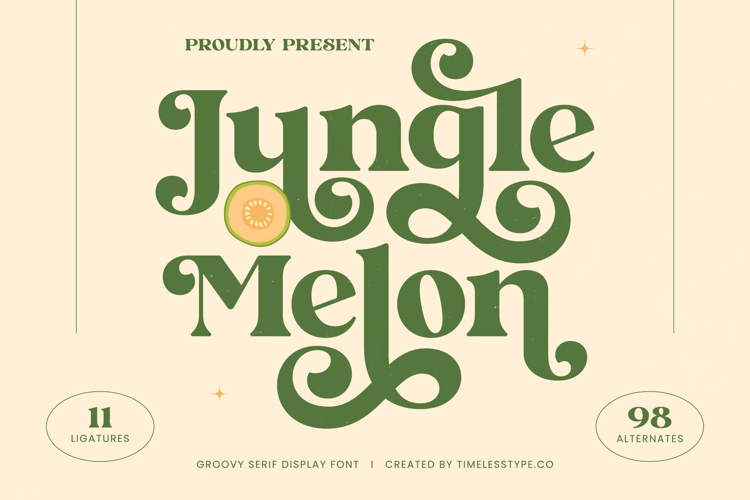
Jungle Melon - Groovy Serif Display Font
Unleash a wave of nostalgic charm and contemporary flair with Jungle Melon - Groovy Serif Display Font. This exceptional typeface masterfully blends retro aesthetics with a fresh, modern sensibility, creating a truly unique aesthetic that commands attention. Its inviting curves and fluid letterforms evoke a sense of playful sophistication, perfect for design projects seeking a distinctive and memorable voice. Experience the immediate impact of a font designed to stand out.
Elevate your visual narratives with the inherent richness of Jungle Melon - Groovy Serif Display Font. Boasting an impressive collection of 11 ligatures and 98 alternates, this font offers unparalleled customization and creative freedom. Each character is crafted with meticulous attention, ensuring seamless integration and a polished finish across all your creative projects. Discover the depth of its expressive capabilities, transforming ordinary text into captivating visual art.
Broaden your design horizons without compromise. With its extensive multilingual support, Jungle Melon - Groovy Serif Display Font adapts seamlessly across global markets, making it incredibly versatile for international projects. This crucial feature ensures your message resonates worldwide, maintaining its original charm and readability regardless of language. Embrace a font that empowers truly global communication and design.
Jungle Melon - Groovy Serif Display Font is the ultimate choice for elevating diverse design applications. It is perfect for luxury branding, eye-catching packaging, vibrant social media graphics, and engaging editorial designs. Ideal for poster design, merchandise, or any project requiring a bold yet approachable statement, this font guarantees an impactful and captivating presence. Invest in design that truly differentiates.